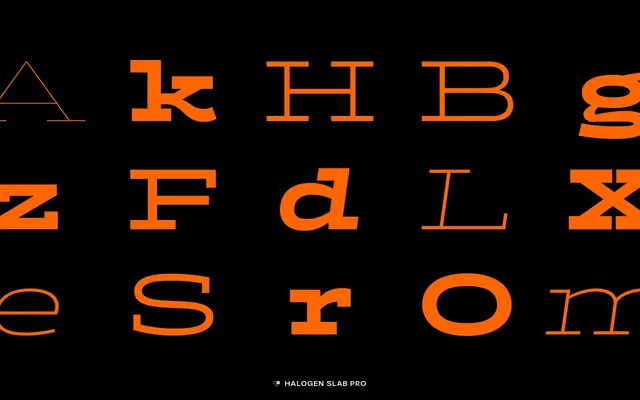
Halogen Slab Pro
Positype · Neil Summerour · 2011
A slab serif originally released in 2011 and remastered in 2024, offering seven weights with obliques and expanded Cyrillic and Greek script support.
First released by Neil Summerour in 2011, Halogen Slab Pro is the remastered edition of the slab variant from the Halogen family, updated with Cyrillic and Greek coverage alongside an extended character set. Forty-two styles span seven weights from Hairline to Black, each paired with an oblique, and the family includes OpenType features such as small caps, oldstyle numerals, fractions and case-sensitive forms. The generous x-height and broad language support across 343 languages make it suitable for both display and extended text settings.
A slab serif with oblique rather than italic companions and a generous x-height, sitting within the geometric slab tradition. The squared serifs and extended weight range place it firmly in this subcategory.